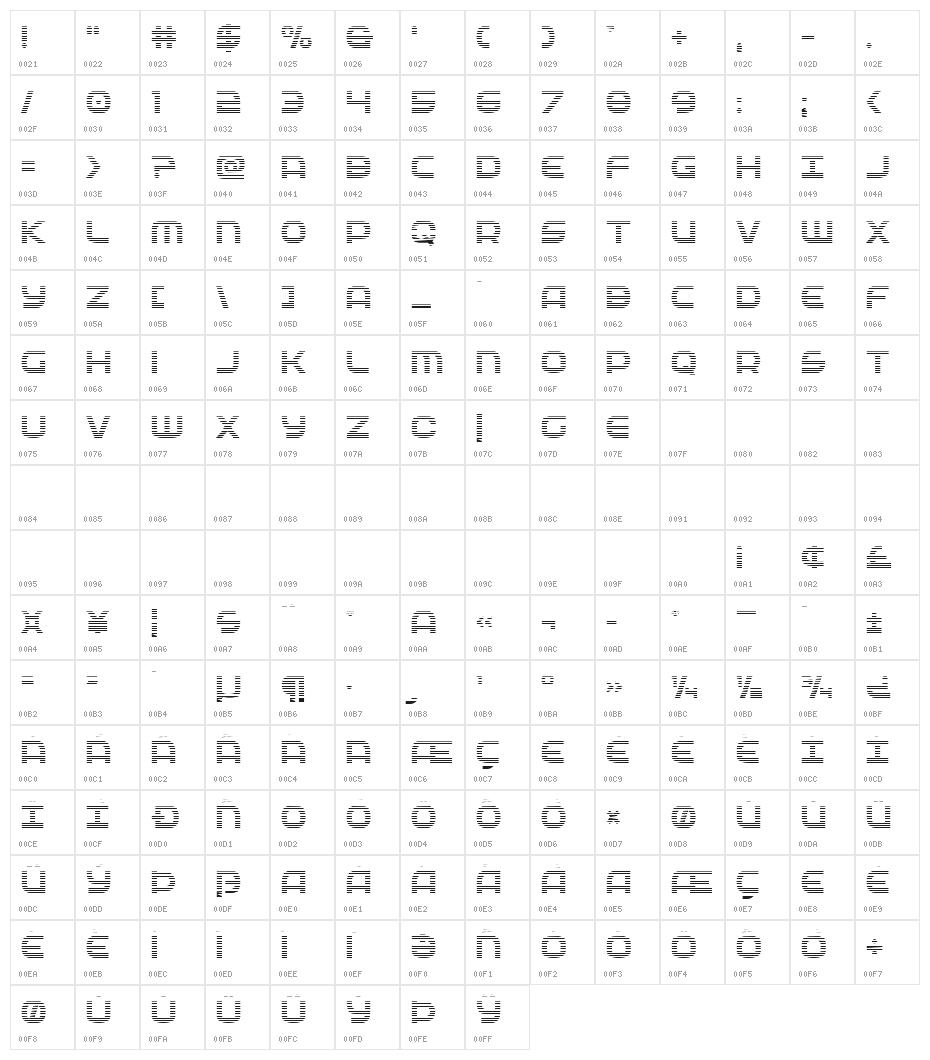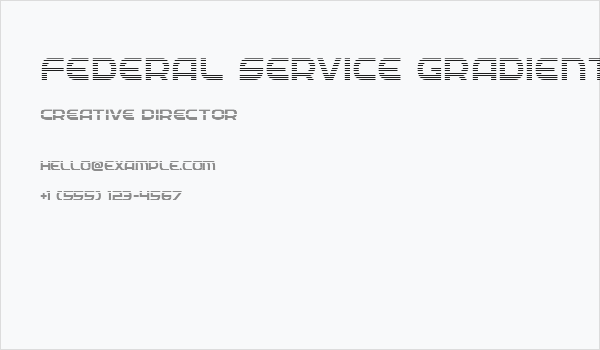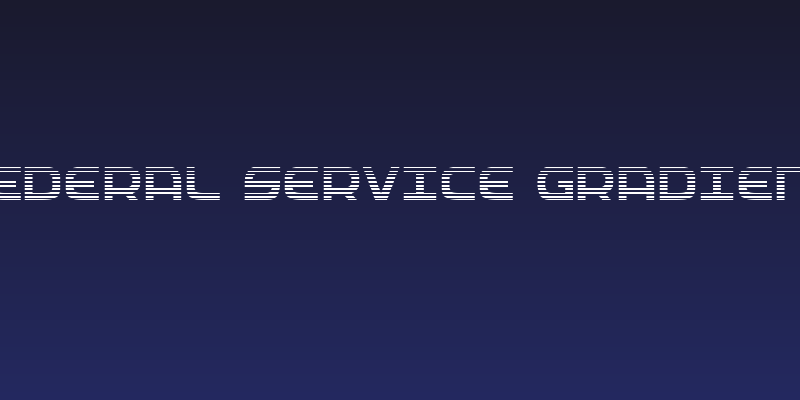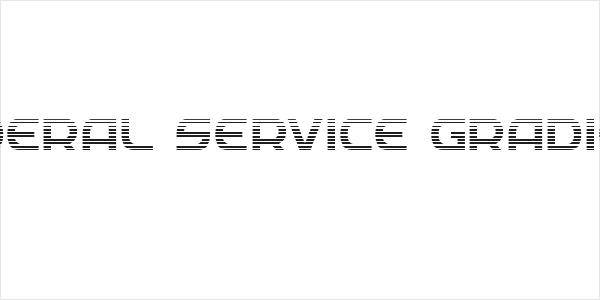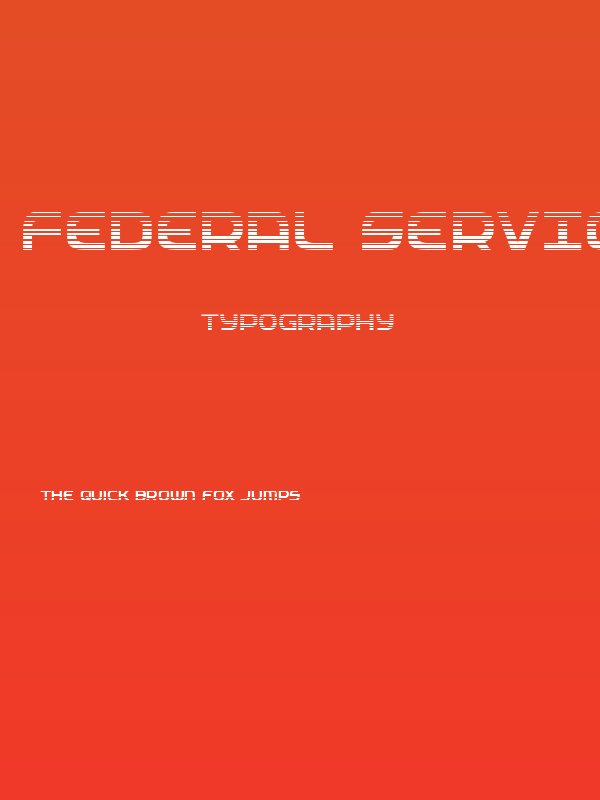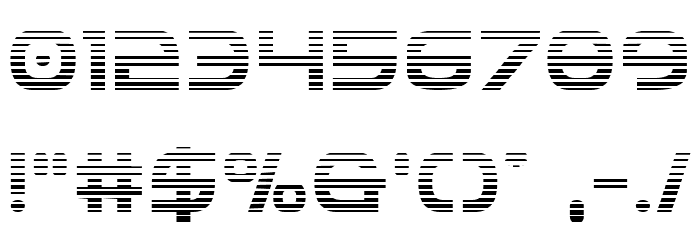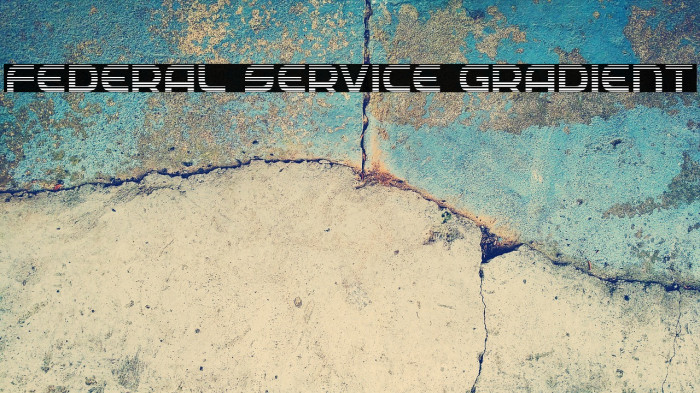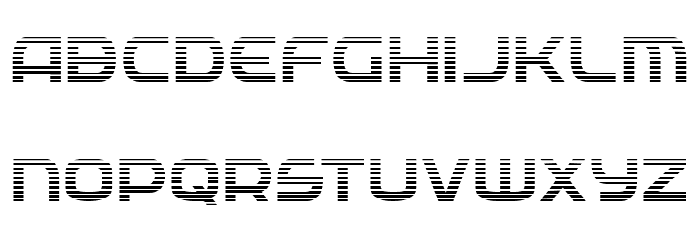
Federal Service Gradient Font
Federal Service Gradient Description
This font features a unique, futuristic design characterized by horizontal lines that create a gradient effect within each character. The uppercase and lowercase letters, as well as numbers and special characters, maintain a consistent style, giving the font a cohesive look. The lines vary in thickness, adding a dynamic visual interest that makes the font stand out. Its geometric shapes and clean lines suggest a modern aesthetic, suitable for projects that require a bold and innovative appearance. The font's distinct style is ideal for capturing attention and conveying a sense of technology and progress.
| Proposed Projects | Ideal for technology branding, sci-fi themed designs, video game interfaces, and modern advertising. |